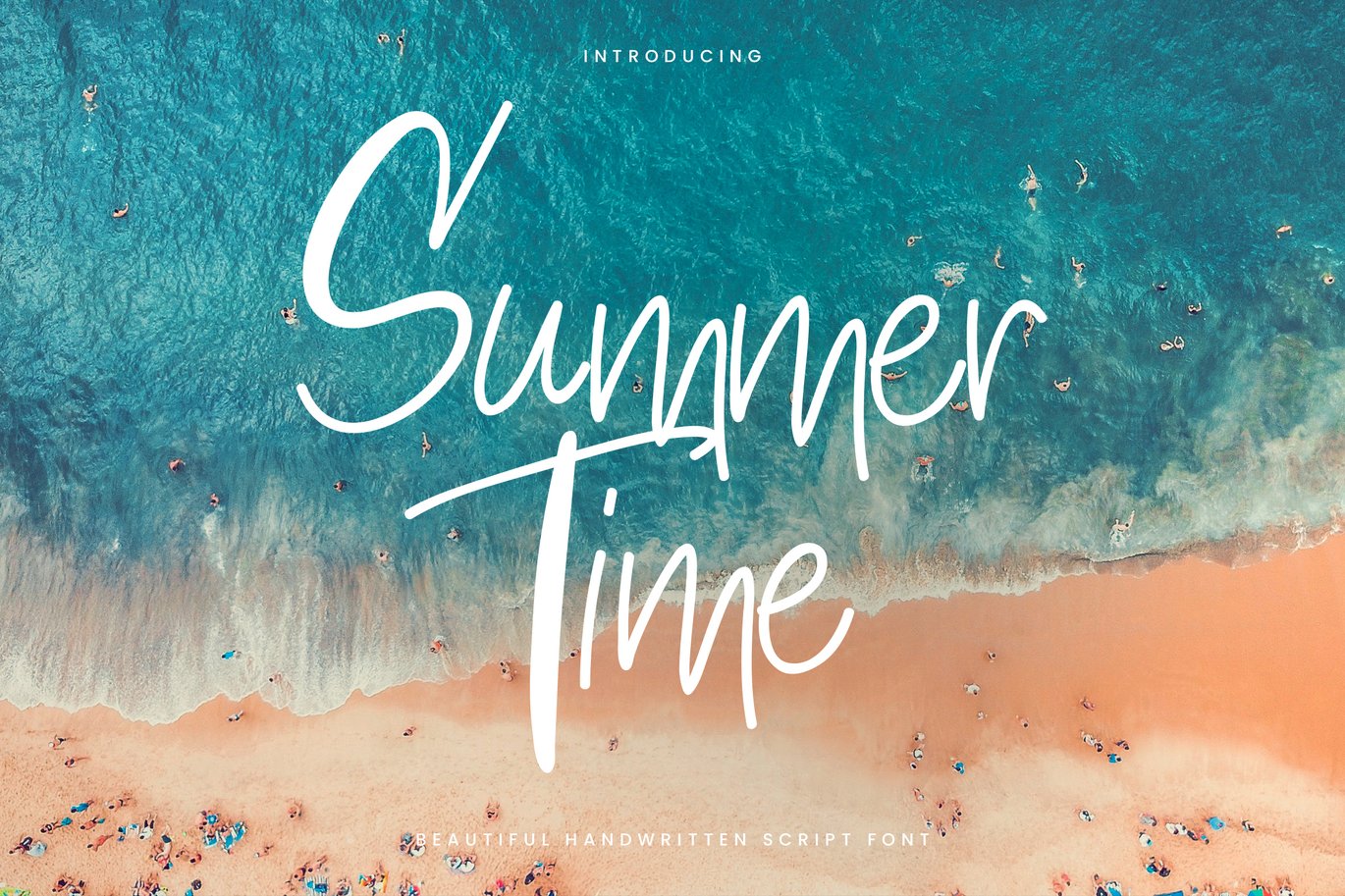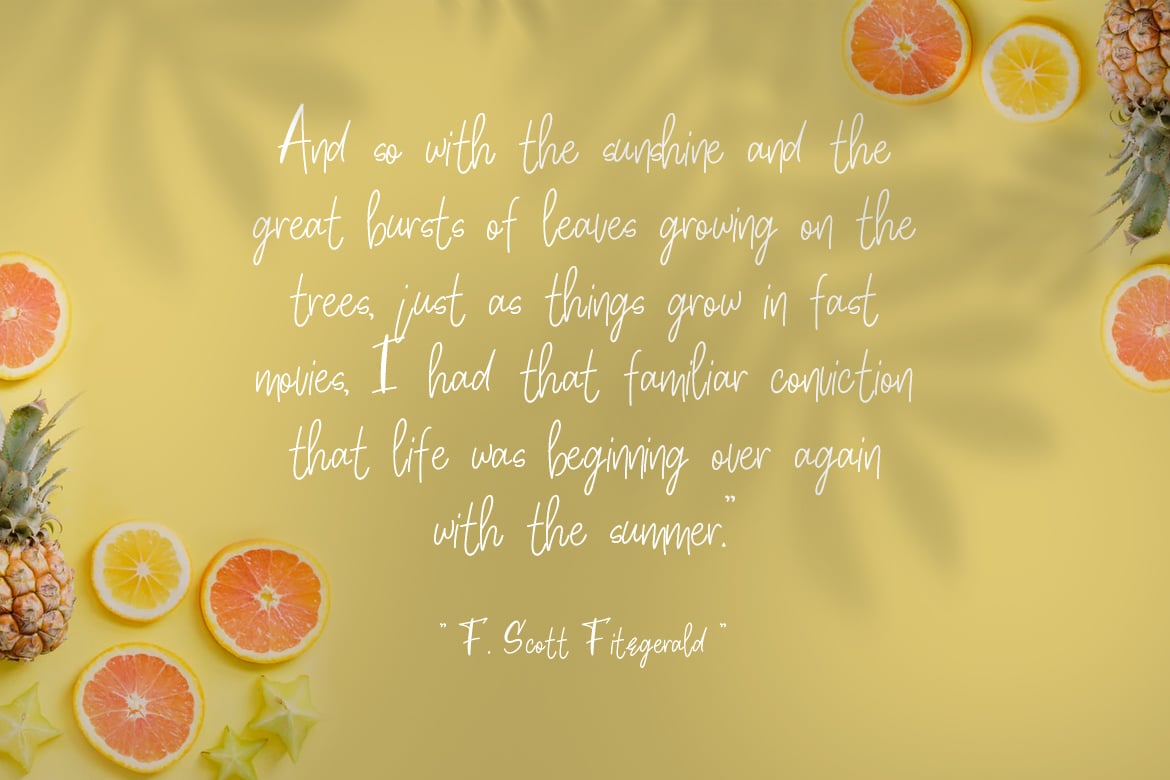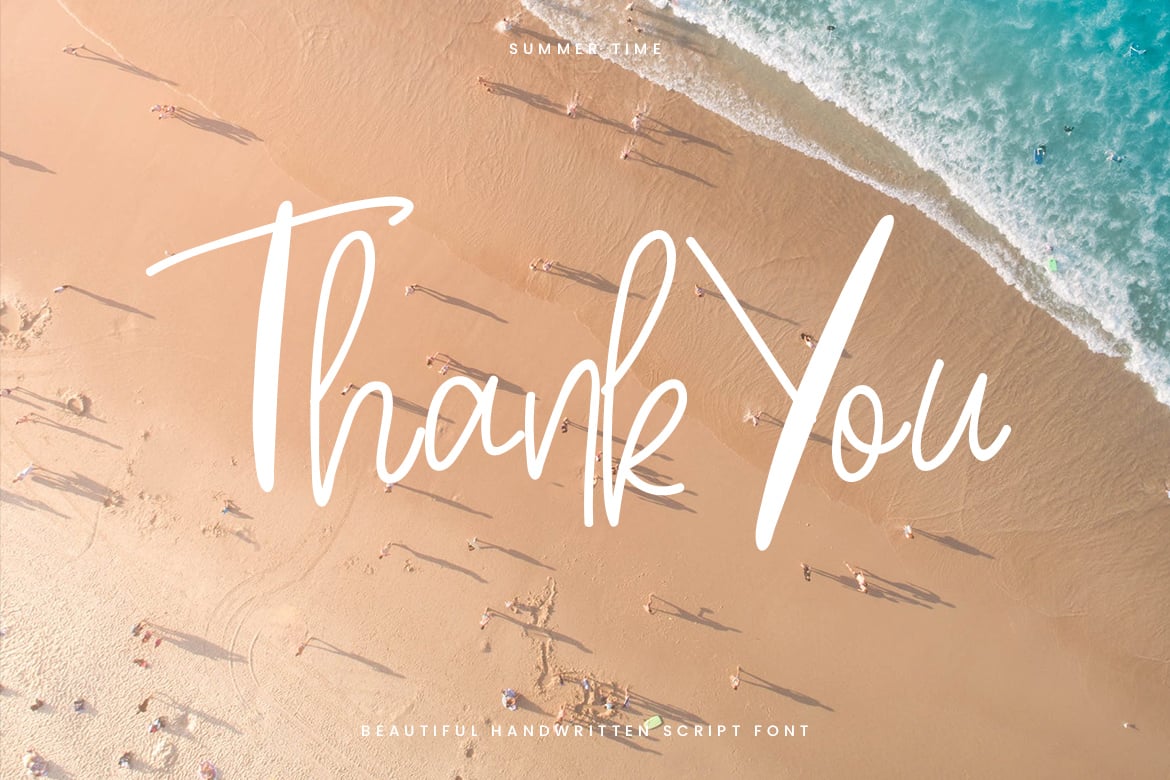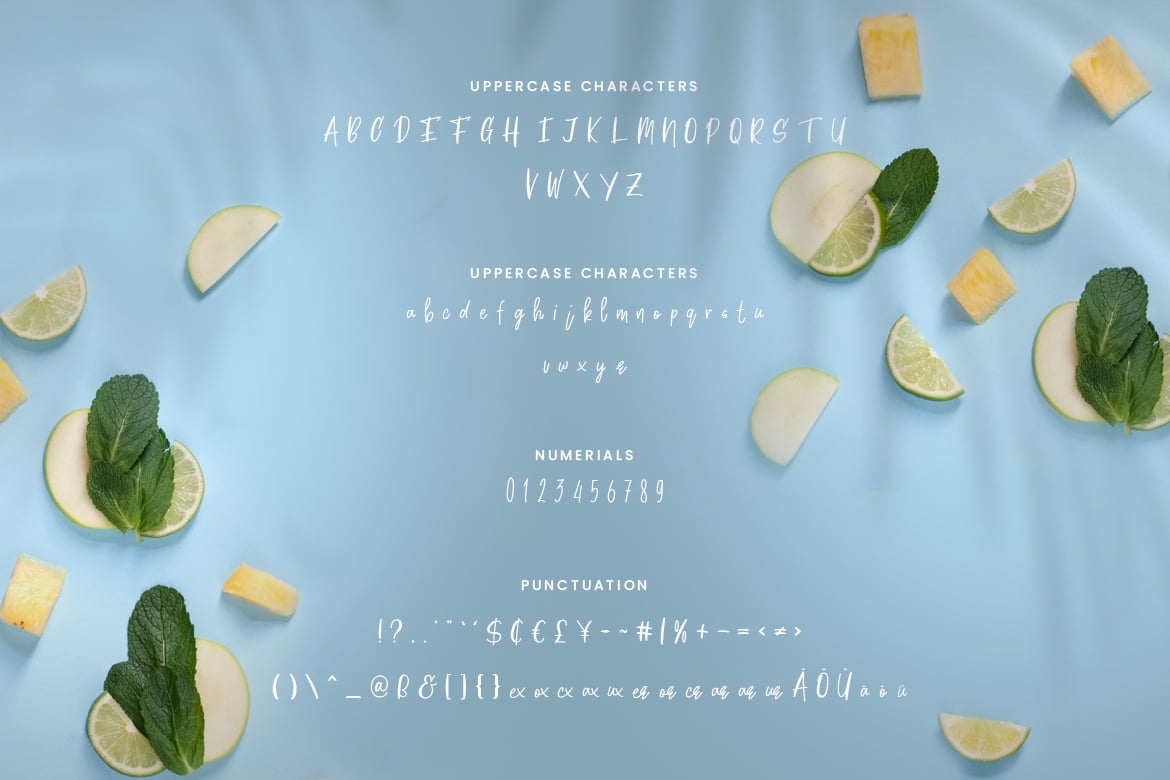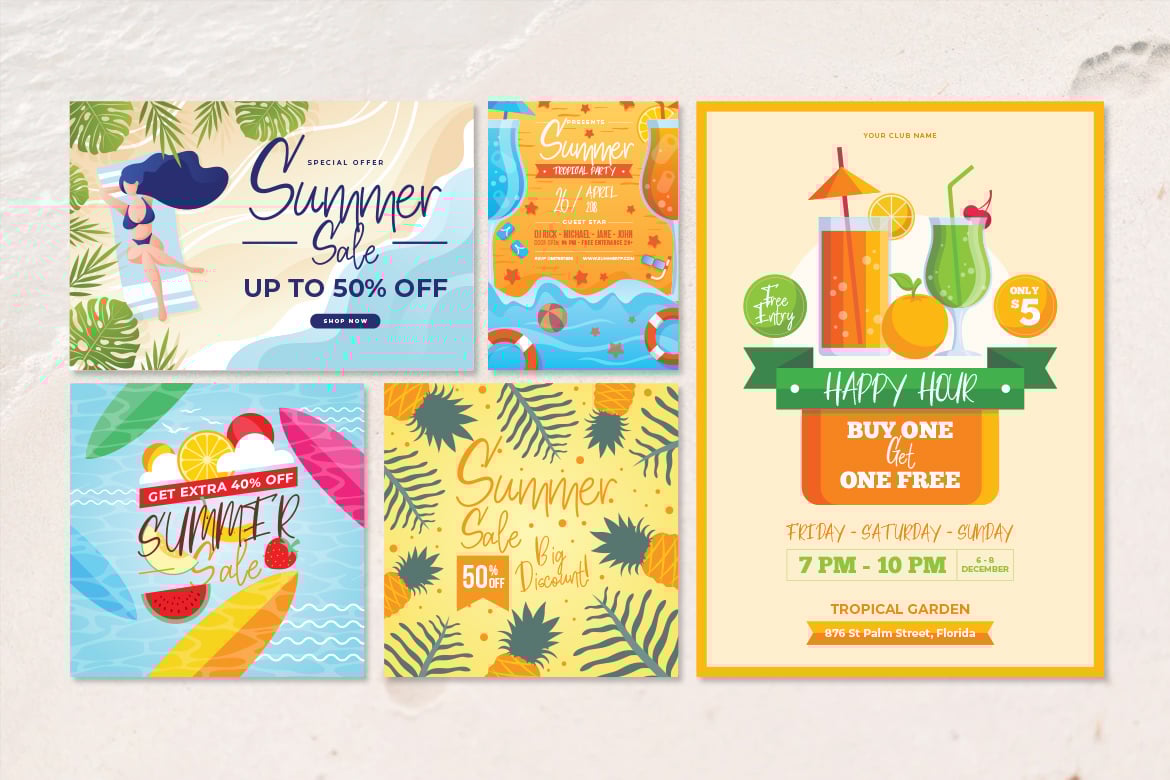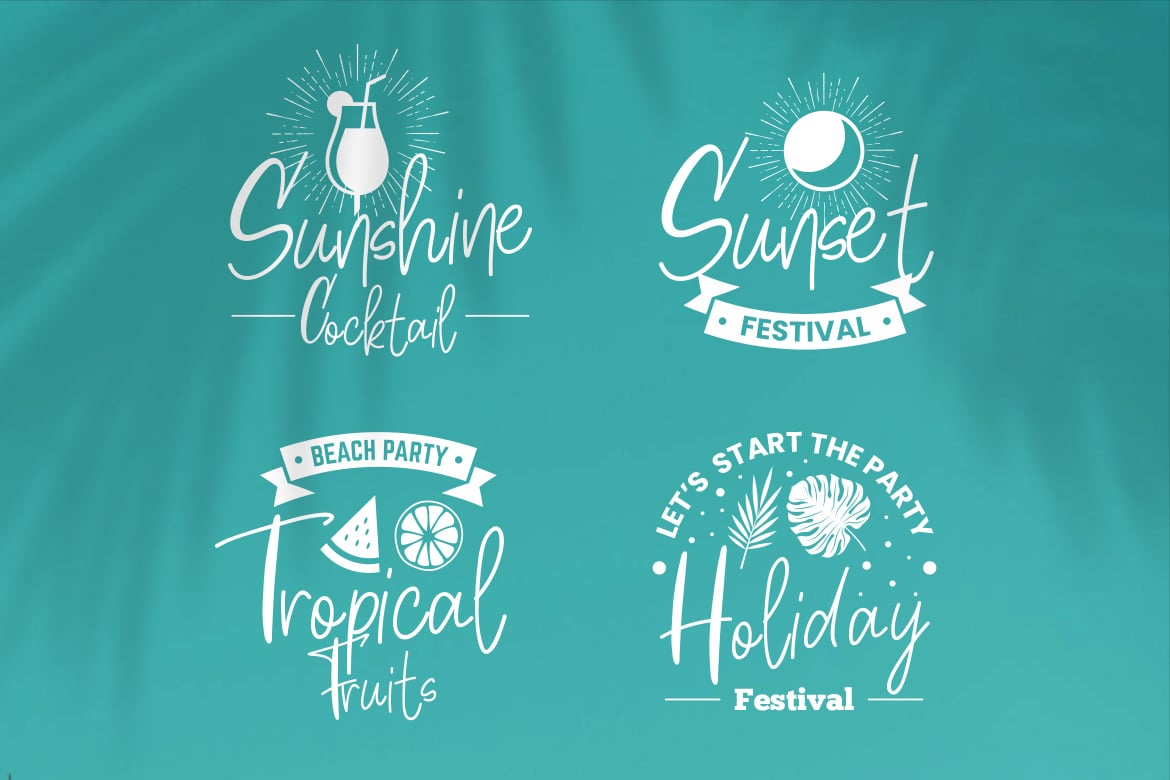
Summertime – Thin Casual Script Font
Are you looking for a thin casual handwriting font? We can help! Try to download our summertime font. The font is suitable to use for all casual purpose. Try to use it on Wedding invitation, summer occasion, greeting card, poster, postcard, photography, branding, editorial, and signature to see the best of it π
- Multilangual Support for Γ€ ΓΆ ΓΌ Γ Γ Γ